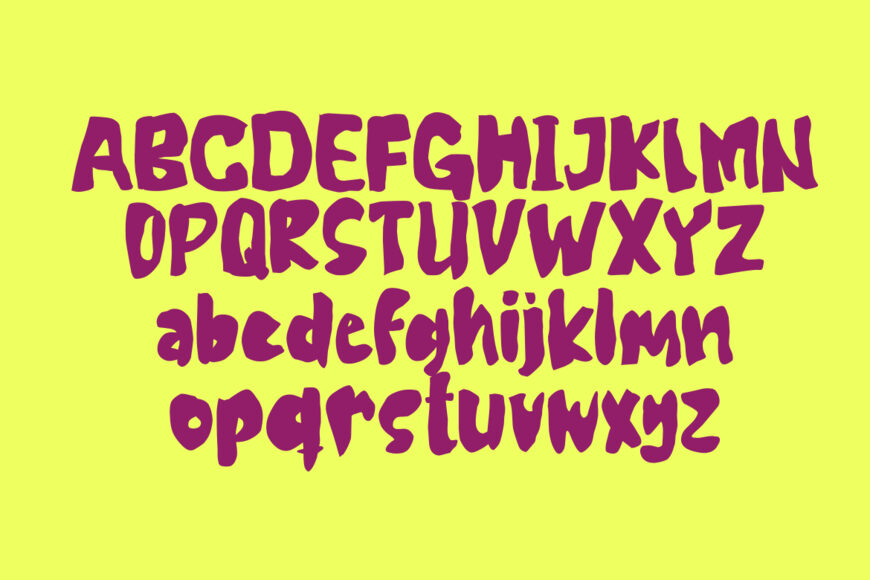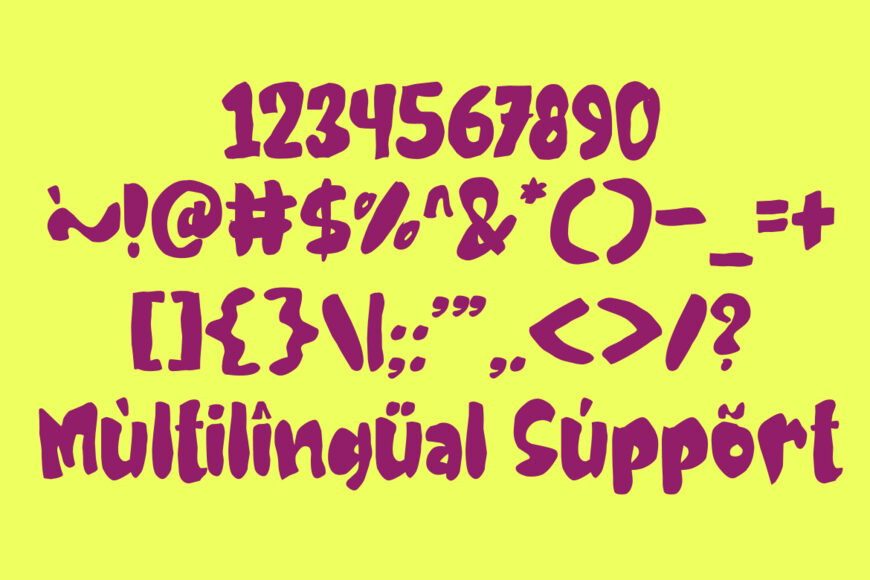
Mengos Font is a bold and playful display typeface designed by GFRcreative. Its chunky, expressive letterforms give designs a fun and energetic personality, making it suitable for children’s projects, posters, headlines, logos, packaging, stickers, social media graphics, and playful branding. Mengos offers versatile typography for creative designs that need a friendly and eye-catching appearance.